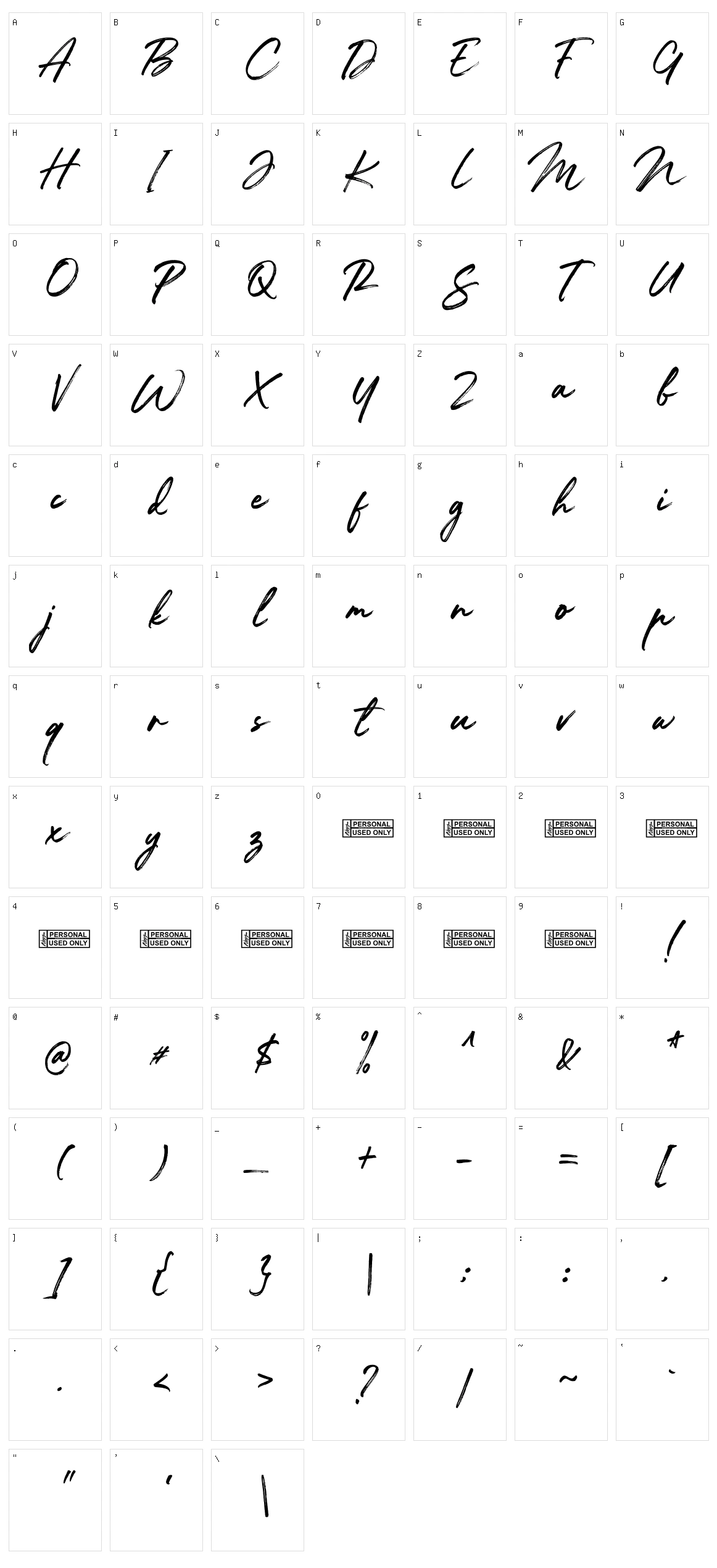
The free font Seasoned Dreamer is carefully designed by Nugs Studio, showcasing a thoughtful balance of creativity and usability and falls under the Script font style. When you download the ZIP file, it contains only 294.36 KB of font files, making it lightweight and quick to download. Please review the license details below to understand permitted usage and distribution rights. If license information is not available, we recommend using this font for personal projects only or contacting the author directly for commercial usage permissions.